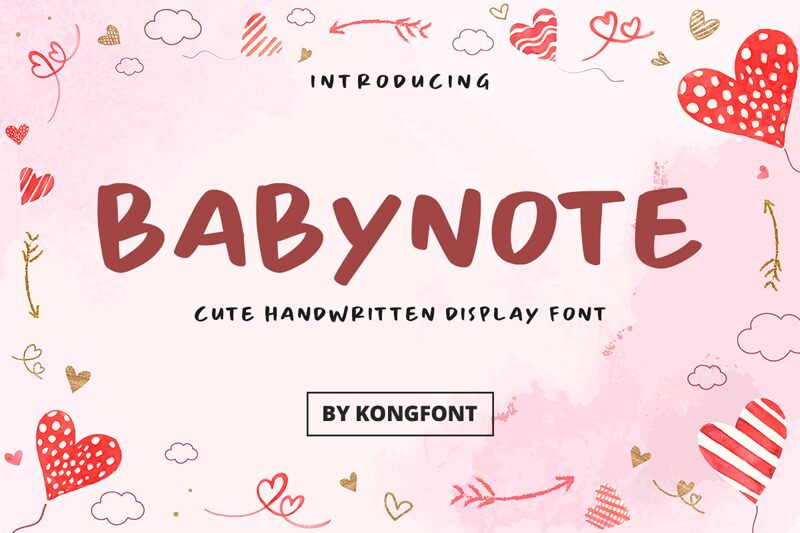
Babynote
Babynote is a captivating display font that exudes a sense of playful charm and warmth. Crafted by the talented team at Kong Font, this bold, handwritten typeface boasts a distinct personality that immediately captures the eye. With its smooth, flowing strokes and organic aesthetic, Babynote emanates a whimsical, almost childlike energy, making it a delightful choice for a wide range of design projects.
Versatile and adaptable, Babynote's character-driven style lends itself beautifully to various applications, from vibrant packaging designs and eye-catching logo elements to engaging social media graphics and captivating editorial layouts. Its ability to convey a sense of playfulness and approachability makes it an excellent selection for projects targeting younger audiences or evoking a sense of nostalgia and authenticity.